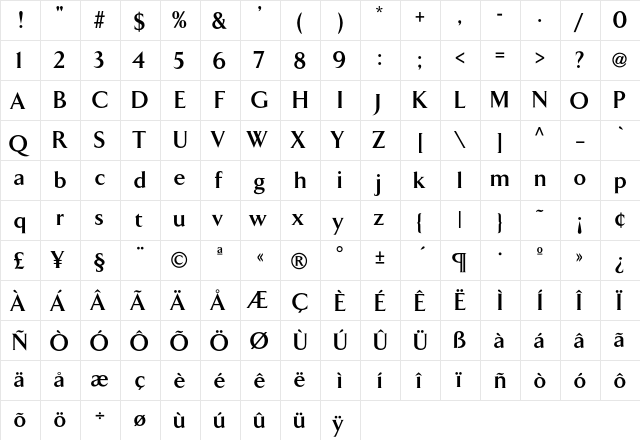
ArrowBold Regular Font Preview
ArrowBold Regular
Design Context for ArrowBold Typeface
ArrowBold is a composed and adaptable typeface that performs quietly and consistently across a wide range of design contexts. Its bold stroke weight gives it real presence on the page.